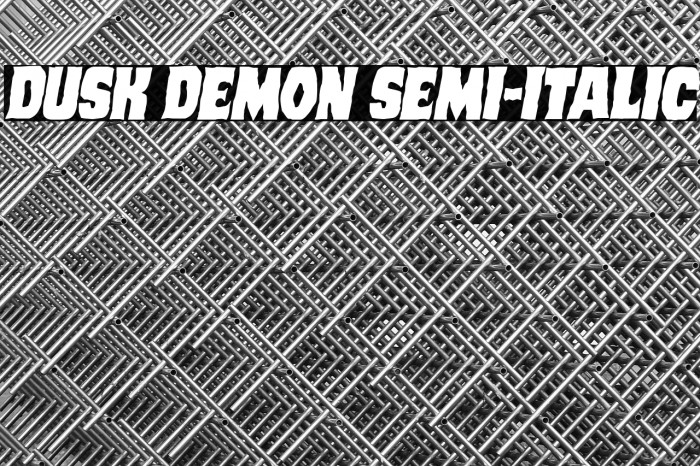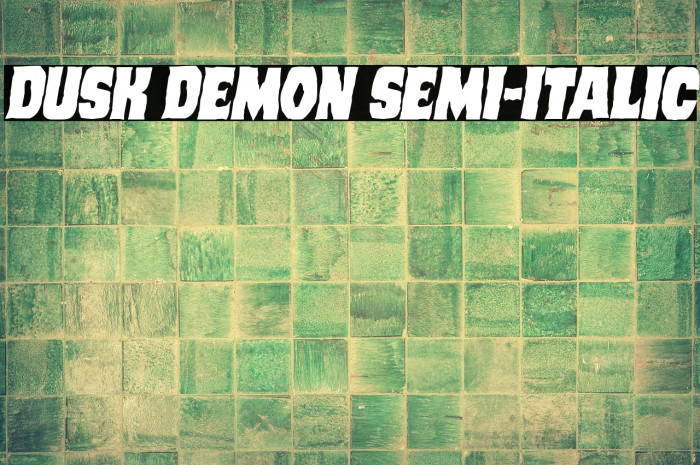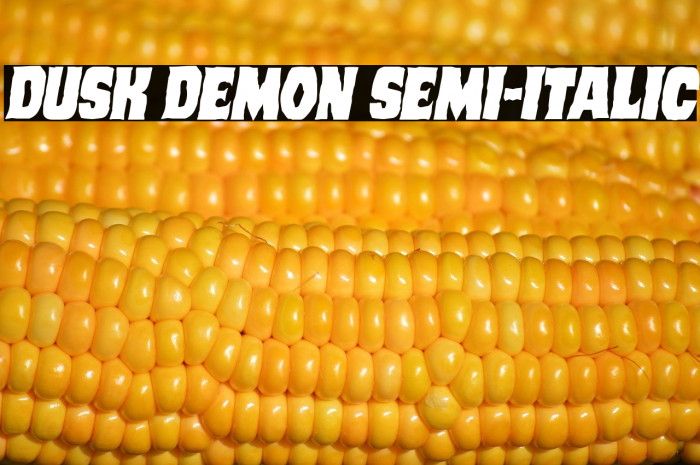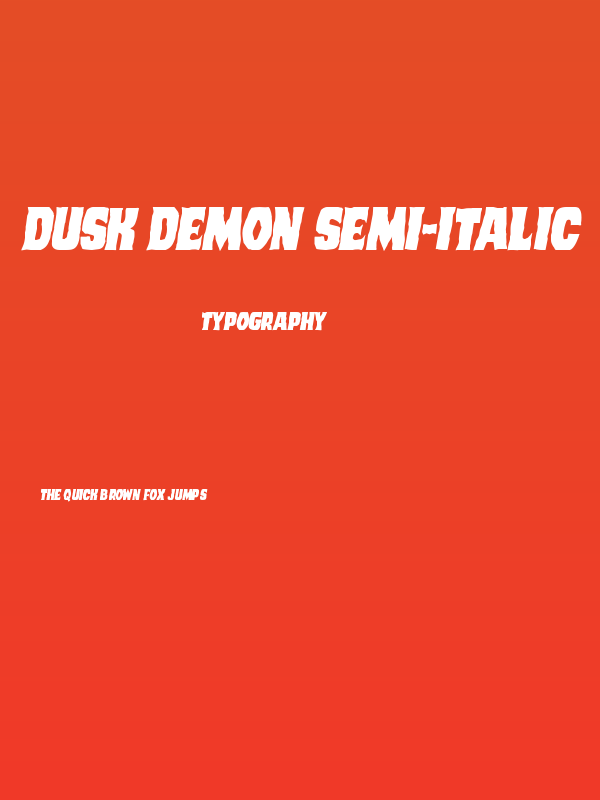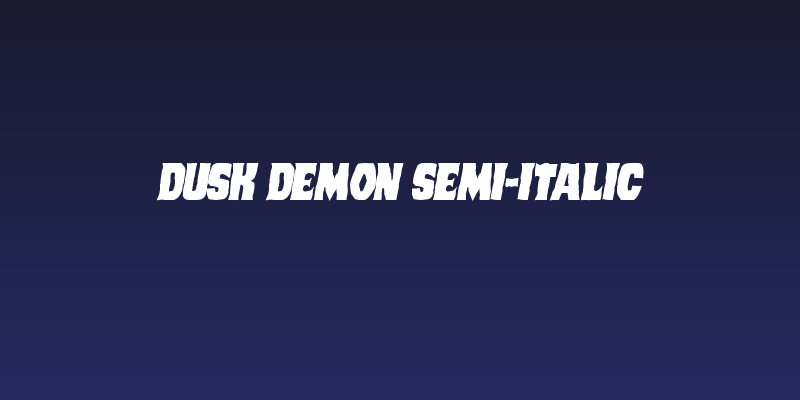
Dusk Demon Semi-Italic Font
Dusk Demon Semi-Italic Description
This font features a bold and dynamic style with a semi-italic slant, giving it a sense of movement and energy. The characters are thick and robust, with a slightly irregular edge that adds a rugged and adventurous feel. The uppercase and lowercase letters maintain a consistent weight, ensuring readability while still conveying a strong visual impact. The numbers and special characters follow the same design principles, making them suitable for a variety of applications. The font's unique style makes it ideal for projects that require a bold statement, such as posters, headlines, and branding materials.
| Proposed Projects | Ideal for posters, headlines, branding, and any project needing a bold, adventurous look. |